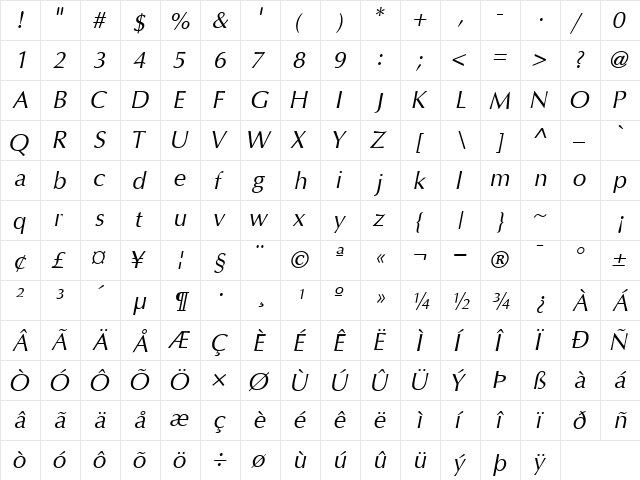
InterfaceSSK Italic
Design Context for InterfaceSSK Typeface
InterfaceSSK takes a measured approach to typography — its balanced proportions and neutral character make it a reliable workhorse for both digital and print work. The slanted form adds forward momentum and visual energy.
Pro Tip: Try InterfaceSSK for annotation and caption copy alongside an upright companion — the contrast in angle creates a dynamic but ordered typographic system.